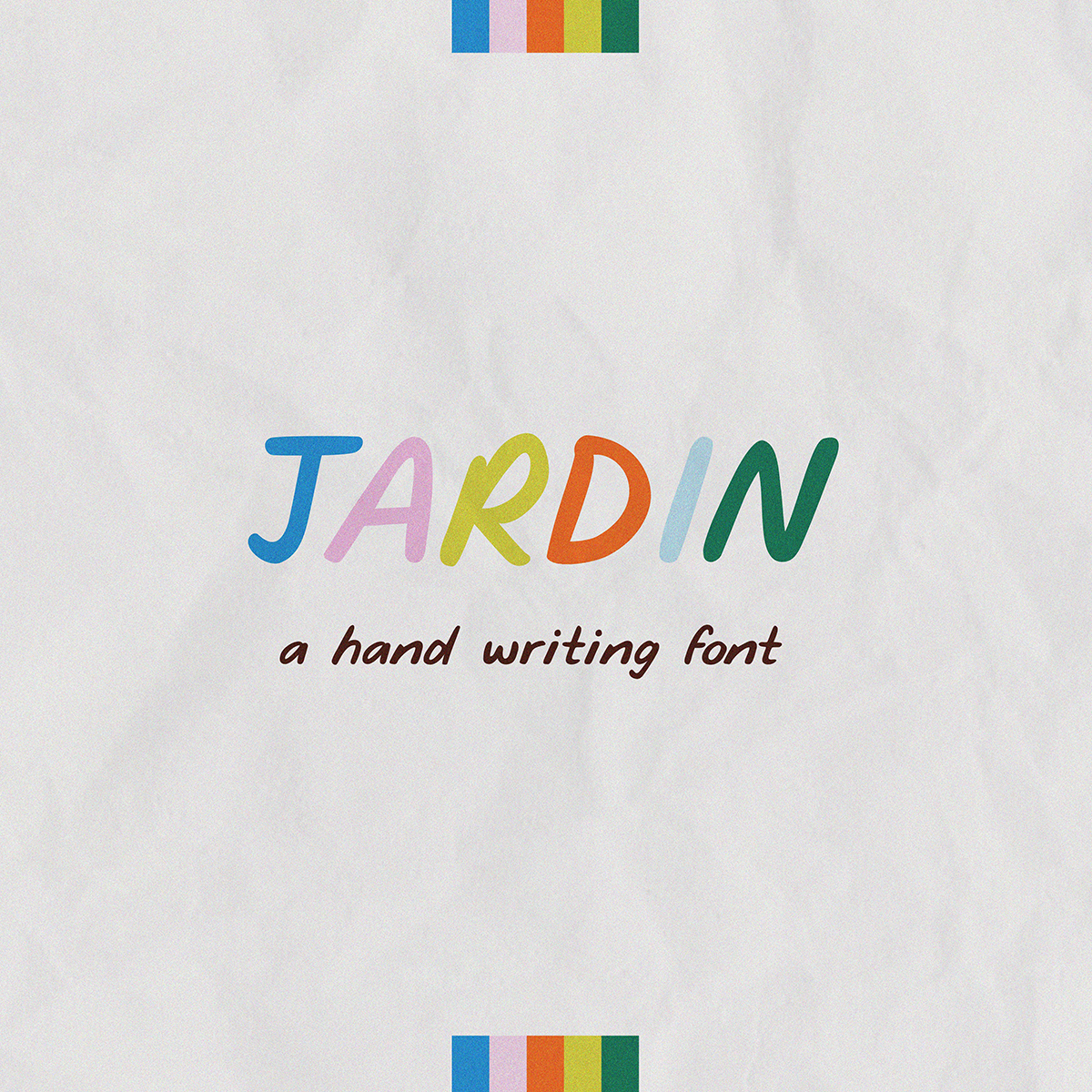
Jardin - A Hand Writing Font
Enhance your presence with Jardin. Capture the essence of handwritten notes with Jardin's authentic feel. Each character is created with the warmth and personality of hand-drawn lettering.